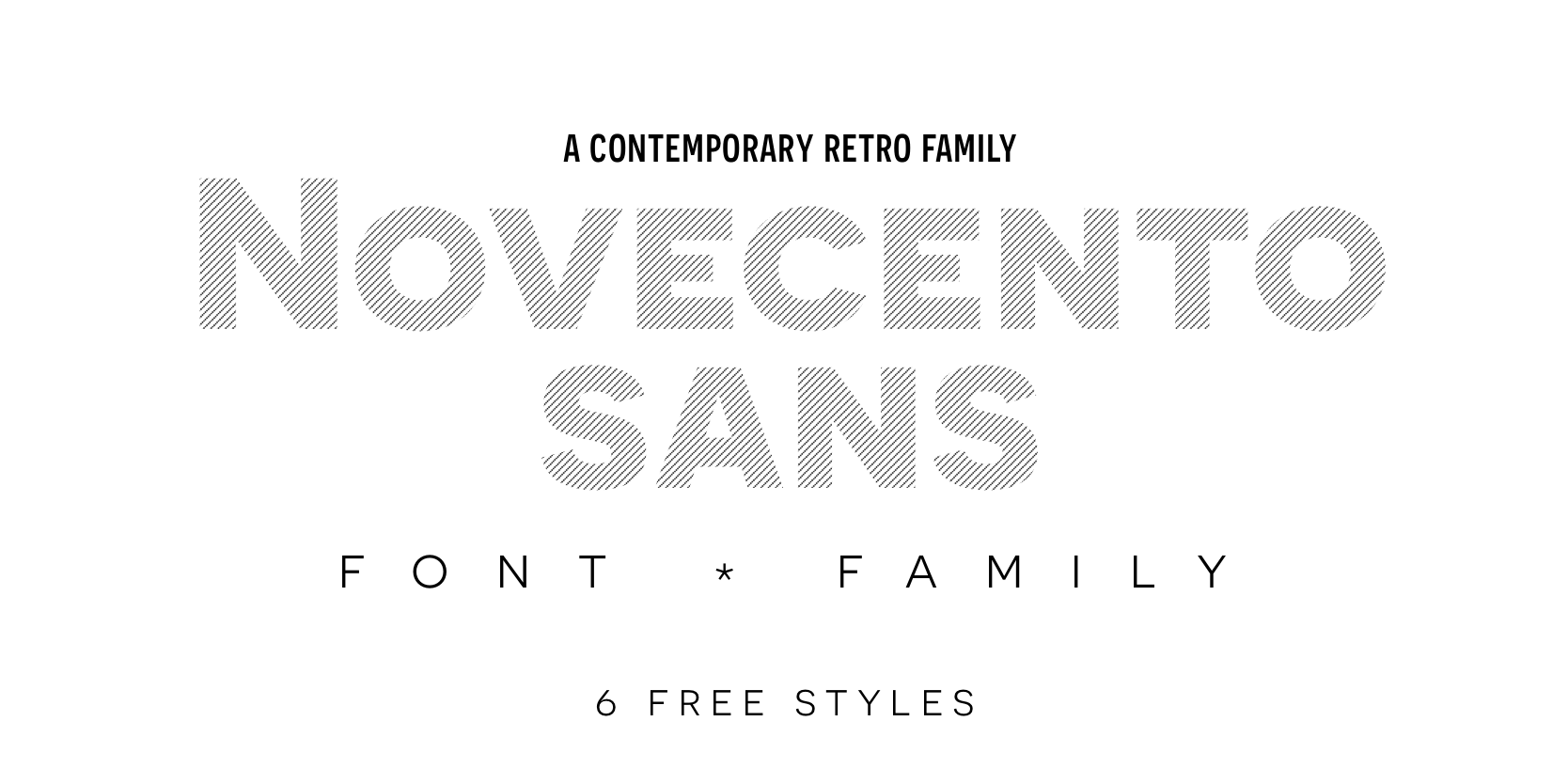
Novecento Sans Font is perfect for Art Deco revival projects, 1920s themed event materials, vintage luxury hotel branding, classic Italian design studios, modernist architecture firms, sophisticated fashion house communications, elegant jazz club signage, refined cultural institutions, timeless luxury brands, and prestigious lifestyle publications that require distinguished typography with twentieth-century elegance and Italian design sophistication.
What makes Novecento Sans Font so exciting is its elegant embodiment of twentieth-century Italian design excellence through refined sans-serif letterforms that capture the sophisticated minimalism and artistic refinement of the golden age of modernist typography. This font features gracefully proportioned character shapes with classical elegance and contemporary functionality that reflect the timeless sophistication of Italian design heritage and the artistic innovation of the early 1900s. The distinguished design approach balances historical authenticity with modern usability while ensuring exceptional legibility across luxury applications, making it perfect for brands that need to project Italian sophistication, modernist elegance, and the refined aesthetic of twentieth-century design excellence.
The Novecento Sans Font family includes multiple weights and styles: Thin, Light, Regular, Medium, Bold, Black, and their corresponding Italic variants. Each weight maintains the signature twentieth-century character while offering comprehensive flexibility for sophisticated design applications and elegant typographic hierarchies.
Italian design specialists consistently choose Novecento Sans Font Free Download for projects requiring sophisticated twentieth-century typography that embodies the spirit of Italian modernist excellence and Art Deco refinement. Whether you're developing luxury brand identities, creating cultural institution materials, designing sophisticated hospitality communications, or crafting timeless fashion campaigns, this font delivers exceptional elegance and Italian authenticity. The font's comprehensive character set includes classical ornaments and Italian-inspired styling options while ensuring optimal performance across both digital and print luxury applications, making it an essential tool for designers working on sophisticated projects that demand elegant, refined, and authentically Italian typography solutions with twentieth-century sophistication and modernist design excellence.